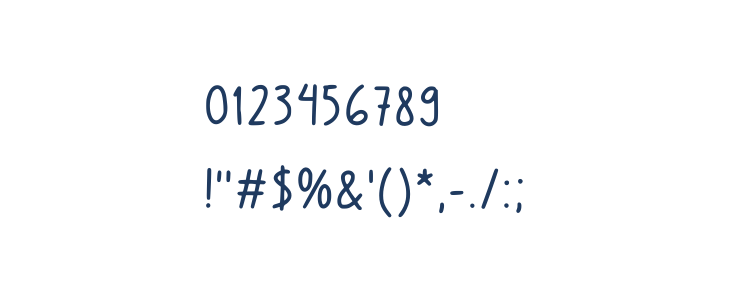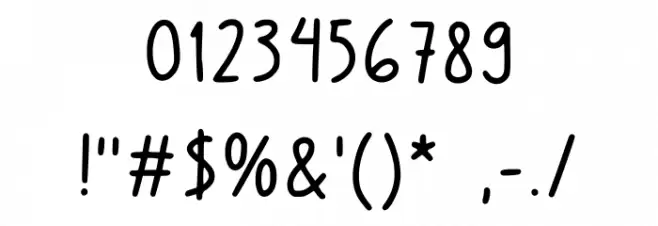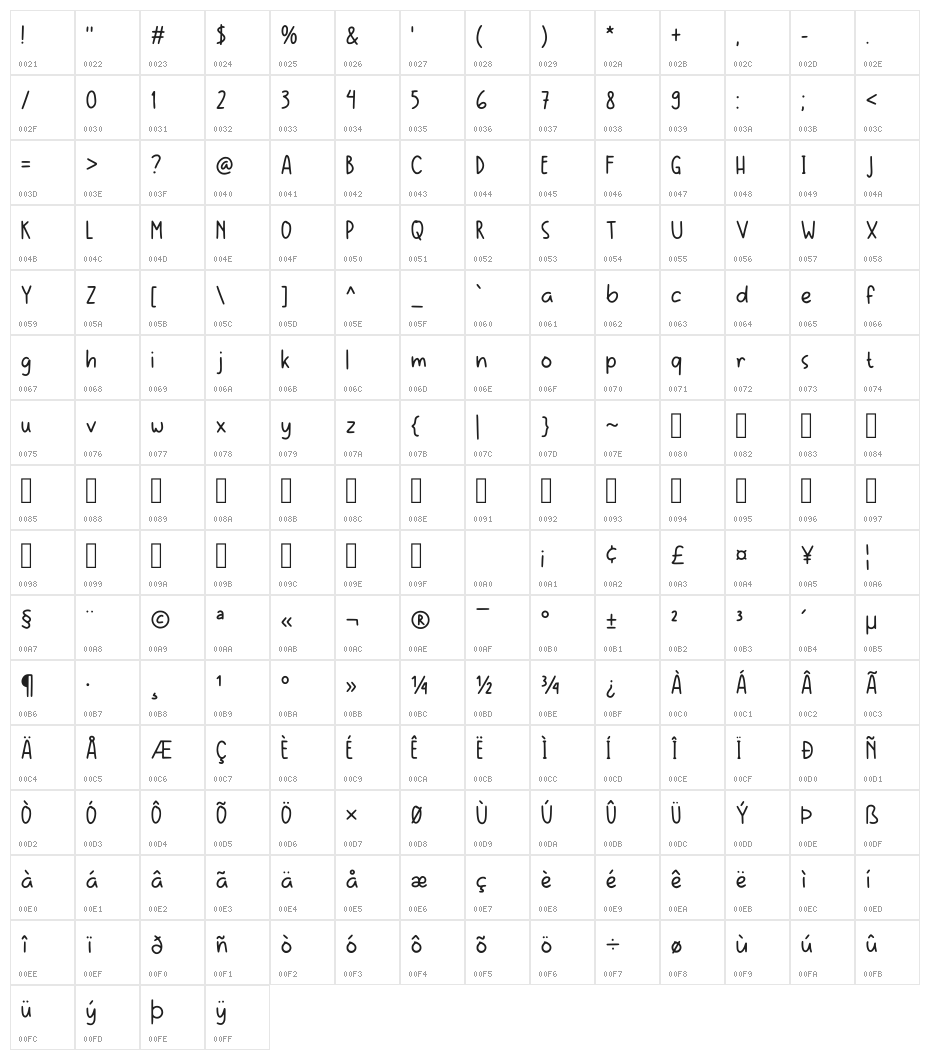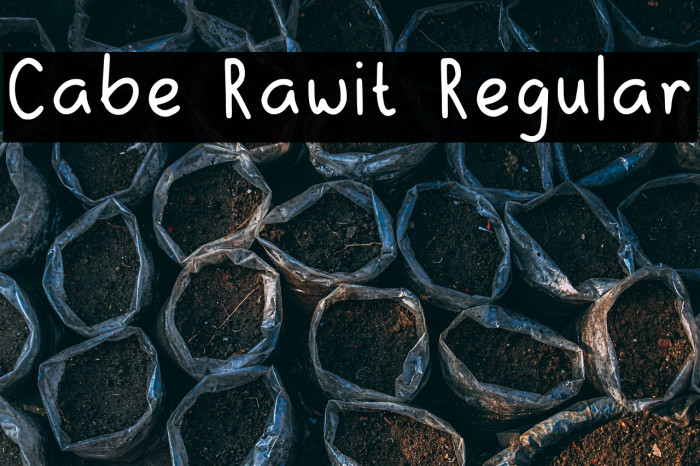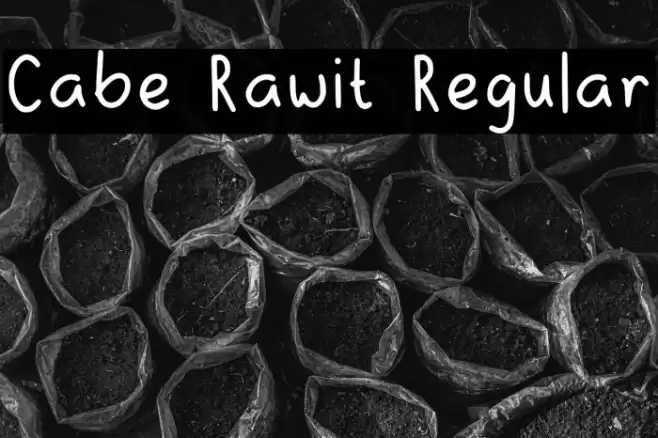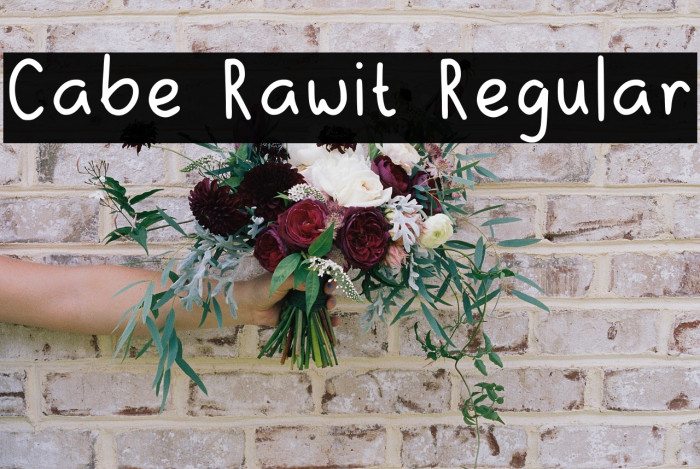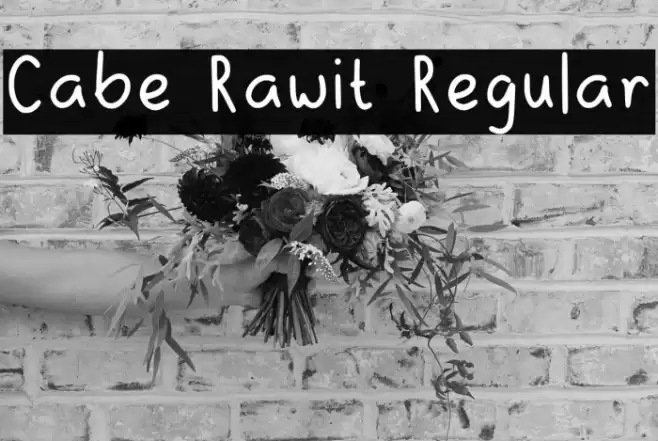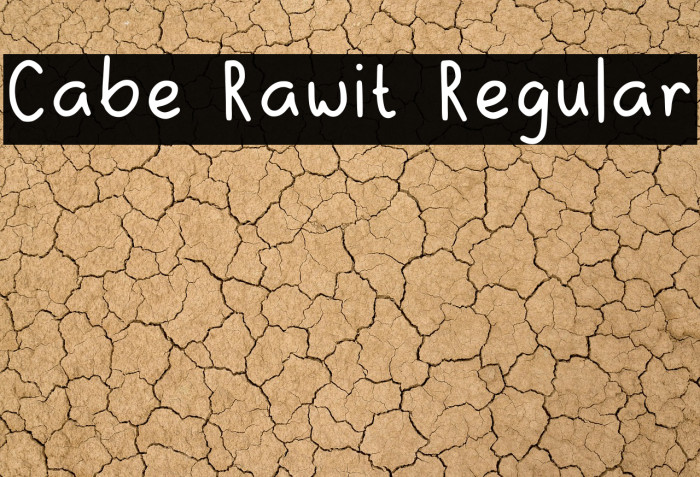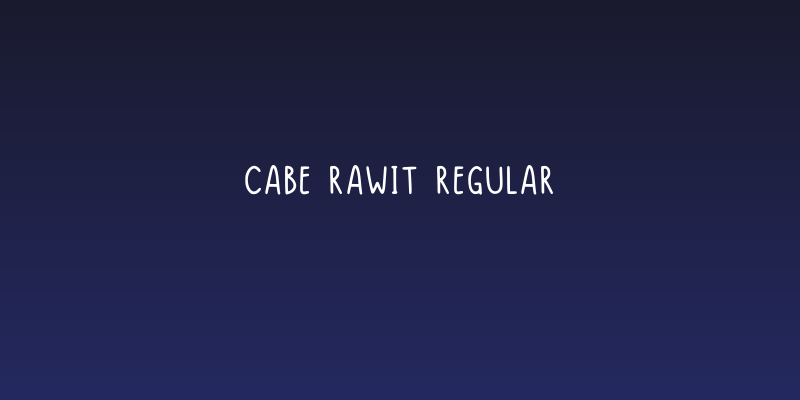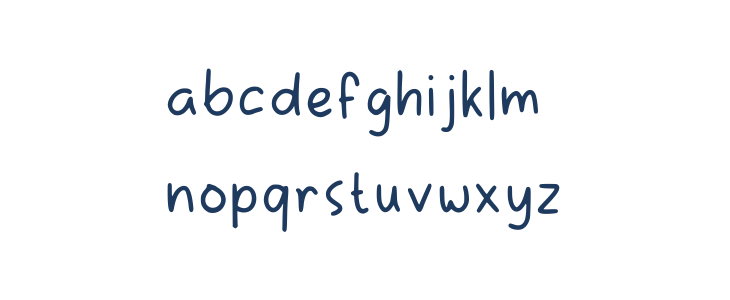
Cabe Rawit Regular Font
Cabe Rawit Regular Description
This font features a playful and informal handwritten style, characterized by its rounded and slightly irregular letterforms. The strokes are consistent in width, giving it a uniform appearance, while the slight variations in character shapes add a touch of whimsy and personality. The font is easy to read, with clear distinctions between uppercase and lowercase letters. The numerals and special characters maintain the same playful aesthetic, making it suitable for a variety of creative projects. Its casual and friendly look makes it ideal for designs that aim to convey warmth and approachability.
| Proposed Projects | Ideal for children's books, greeting cards, casual branding, and social media graphics. |